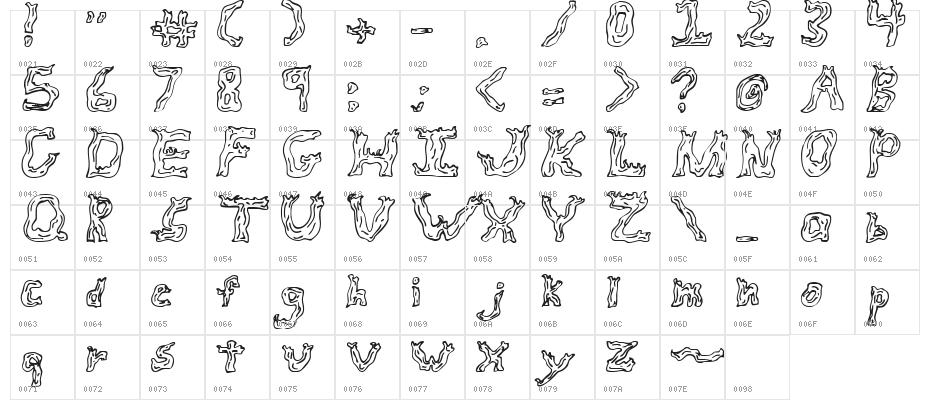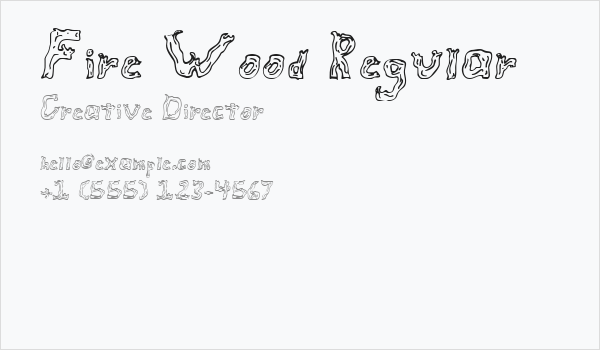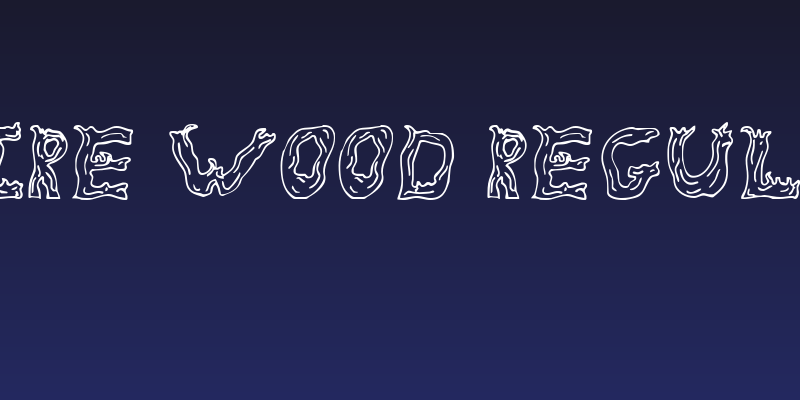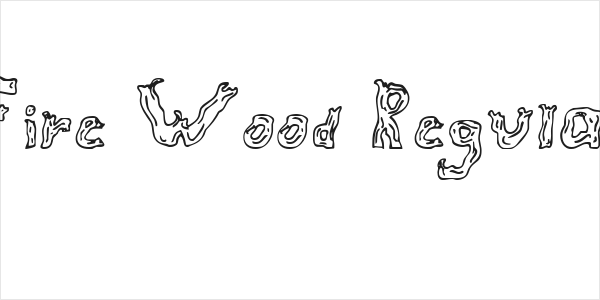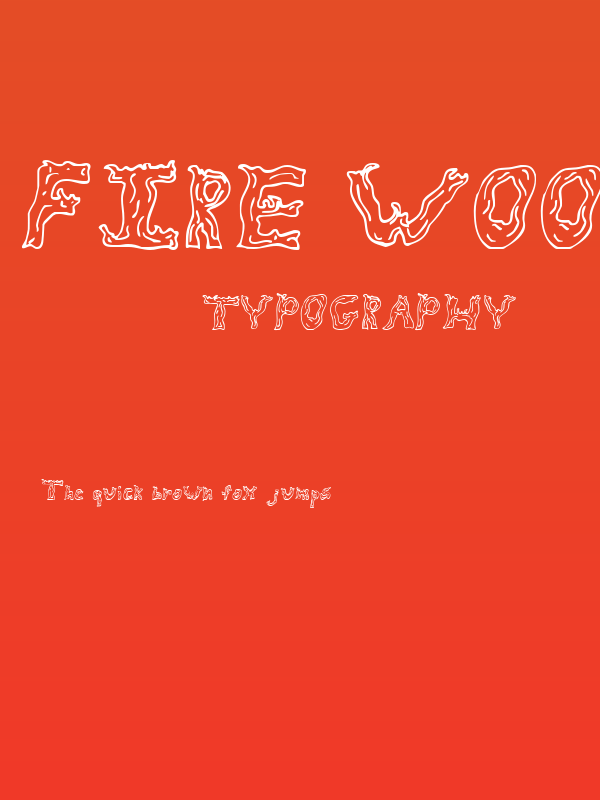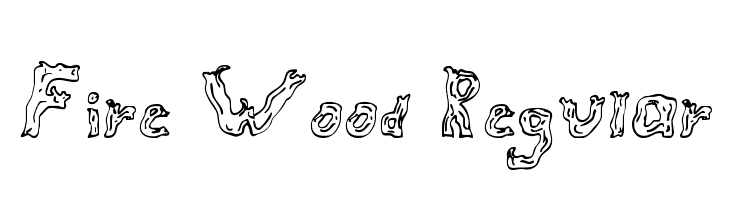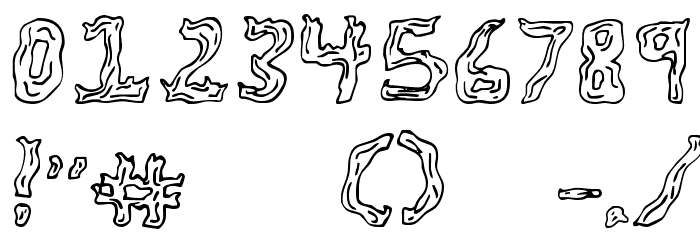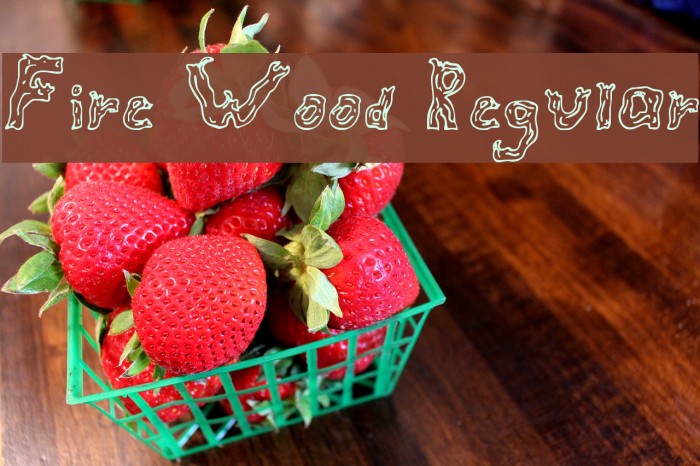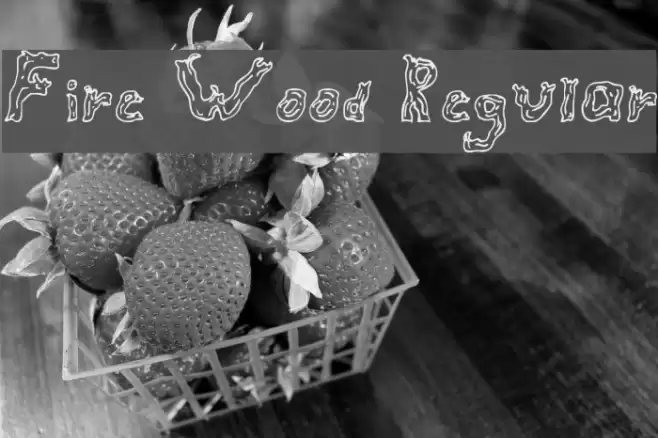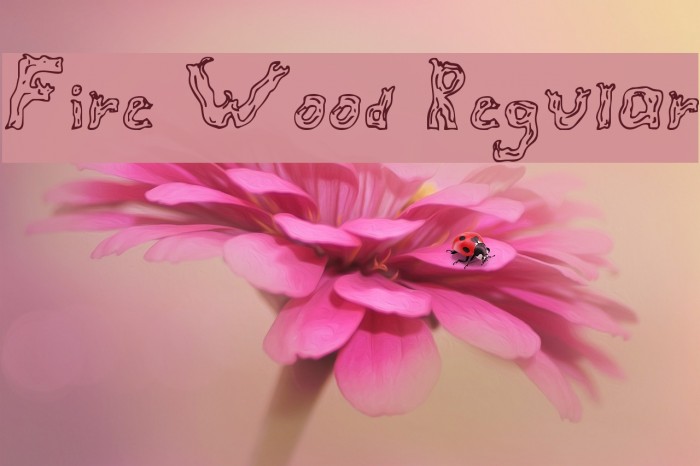
Fire Wood Regular Font
| おすすめプロジェクト | Ideal for creative projects such as event posters, album covers, or branding for rustic or artisanal products. |